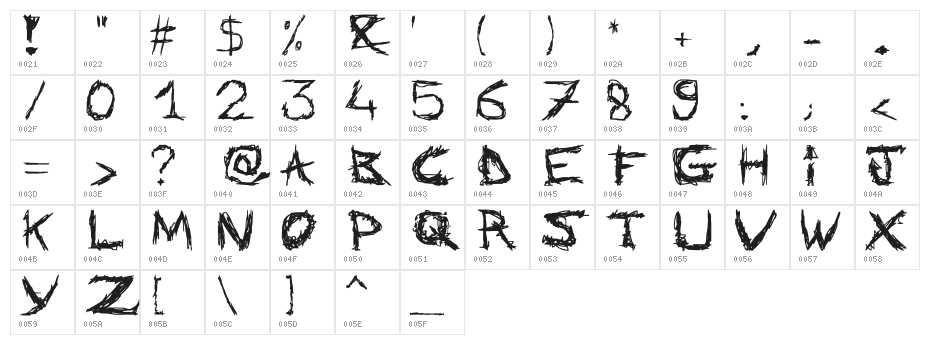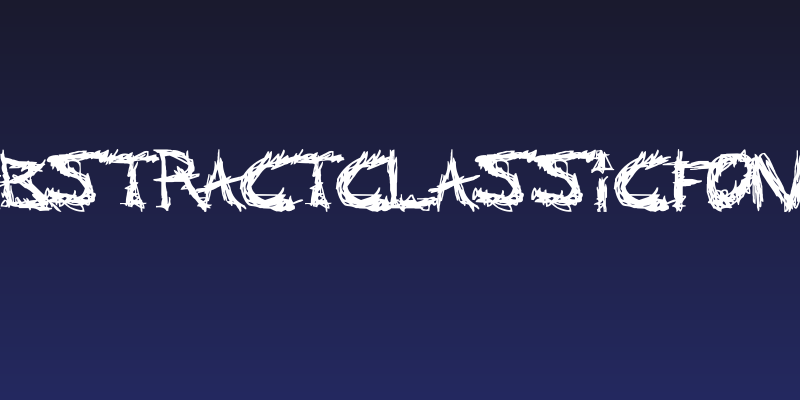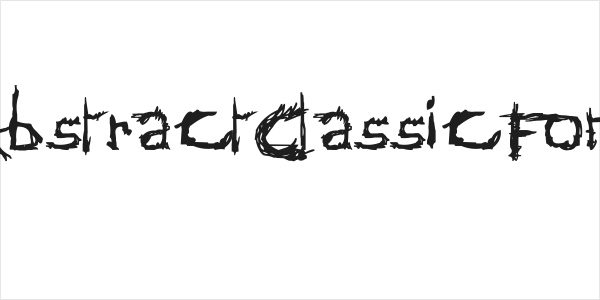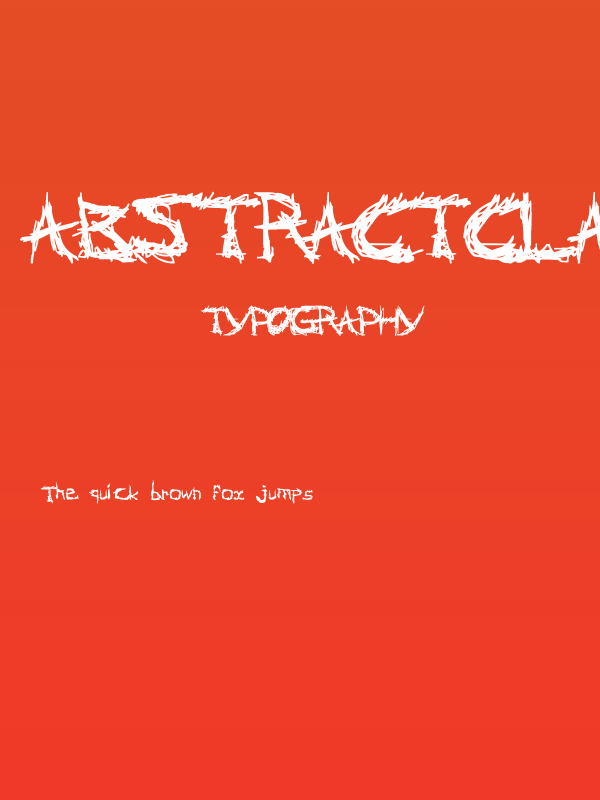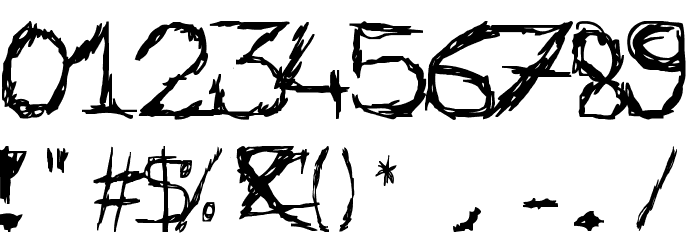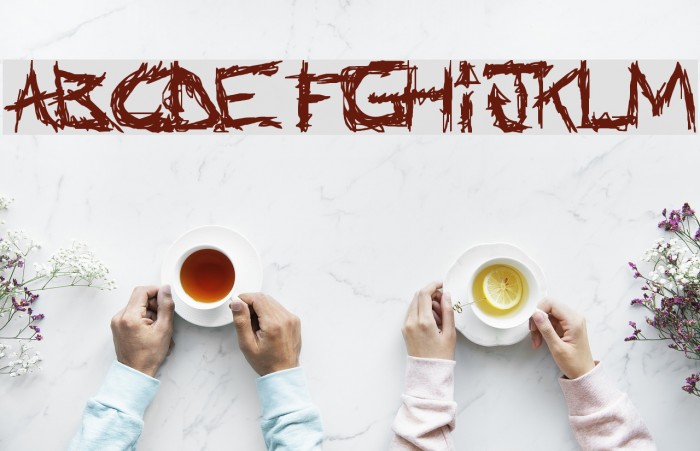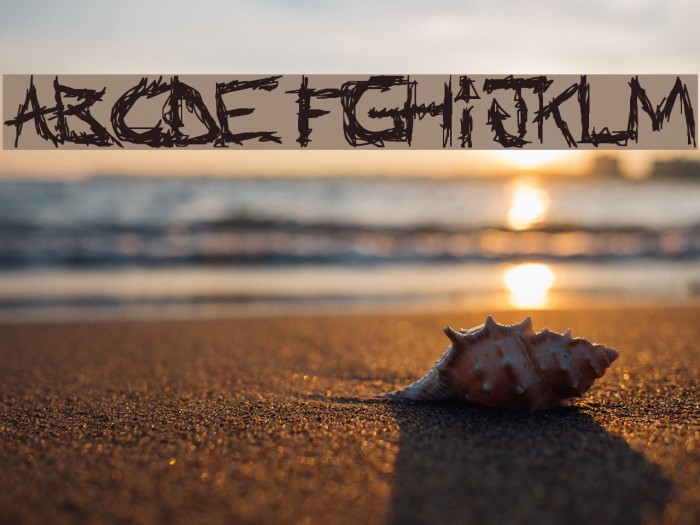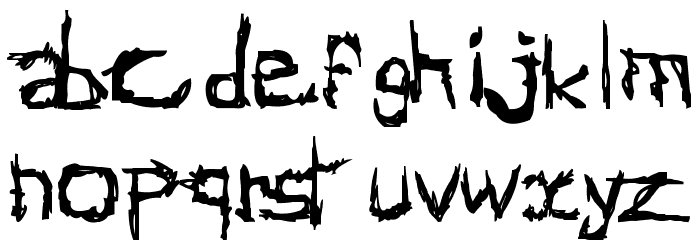
AbstractClassicFont Font
AbstractClassicFont Description
This font features a highly abstract and artistic design, characterized by its jagged, rough edges and irregular strokes. The letters appear as if they have been hand-drawn with a brush or pen, giving it a raw, expressive feel. The uppercase and lowercase letters maintain a consistent style, with each character exhibiting unique, unpredictable forms. Numbers and special characters follow the same aesthetic, adding to the font's cohesive yet chaotic appearance. The overall design is bold and attention-grabbing, making it suitable for projects that require a strong visual impact.
| Overall Style | Modern, Artistic |
| Proposed Projects | Ideal for album covers, posters, graffiti art, and edgy branding projects. |